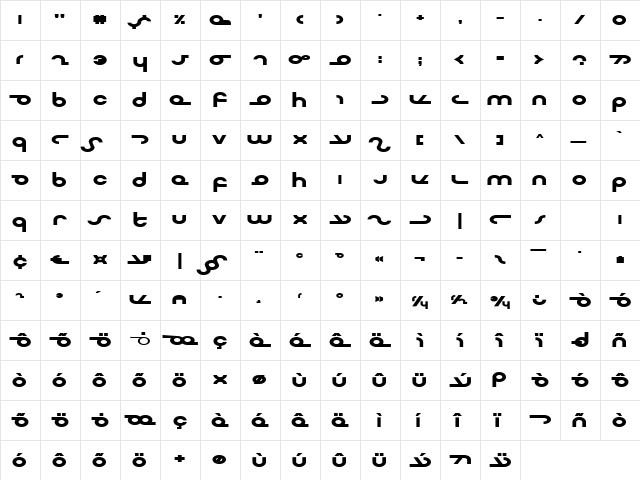
Masterdom Exp Bold Exp Bold
Masterdom Exp Bold is a composed and adaptable typeface that performs quietly and consistently across a wide range of design contexts. Its bold stroke weight gives it real presence on the page.